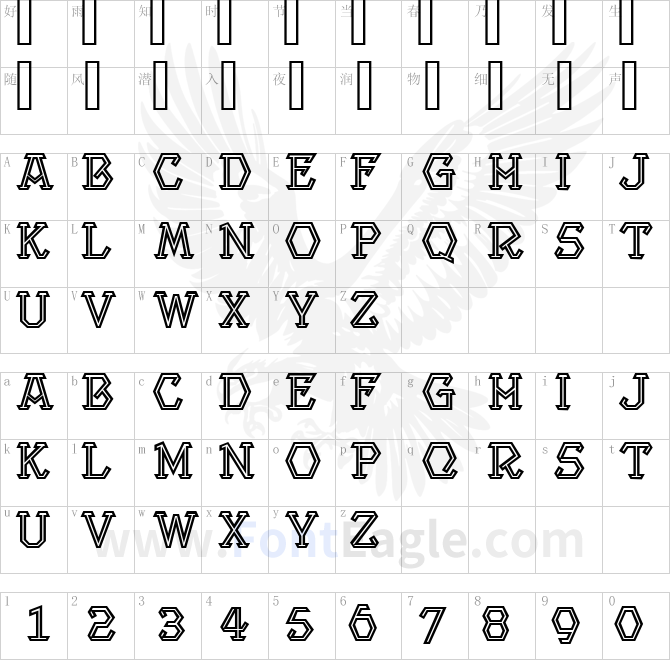
- Font name:ProjectBold Inline
- Font Copyright:PROJECT computer fonts v1.0 ©2004 Harold Lohner • HLohner@aol.com • http://www.haroldsfonts.com Based on the opening titles of the film “Project Moon Base” (1953)